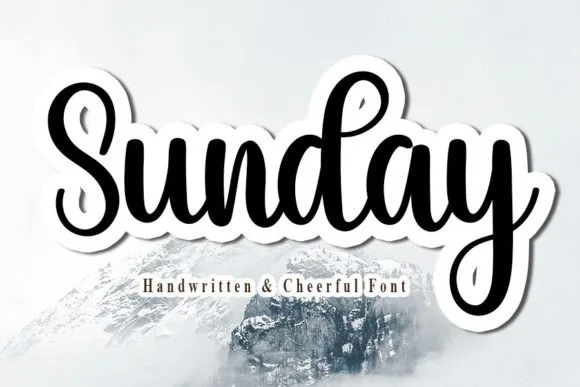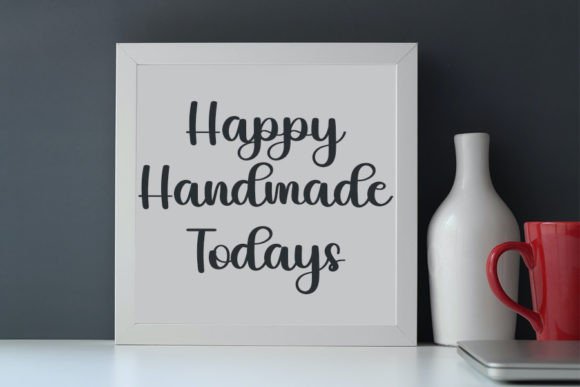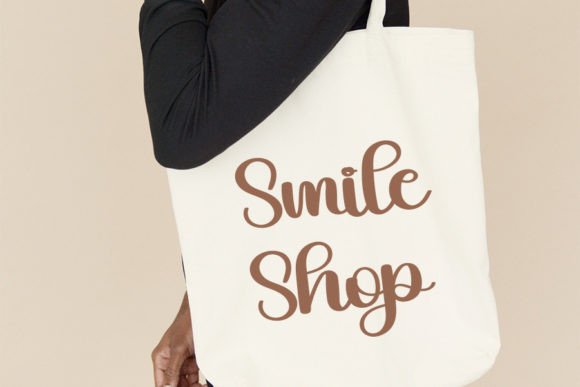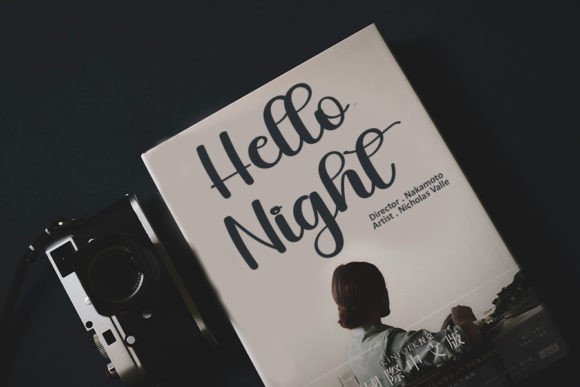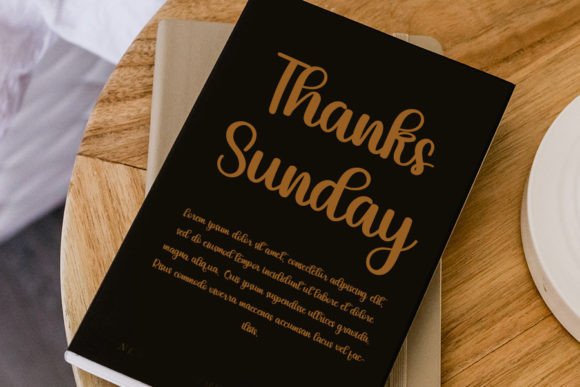
Sunday Font
About Sunday Font
**Sunday: A Laid-Back Vibe in Every Stroke**
**Sunday** isn’t just a font; it’s a laid-back, easygoing essence captured in every stroke. With a friendly handwritten style, this font adds a touch of casual charm to your font library, ready to infuse a relaxed vibe into your creative projects.
The beauty of **Sunday** lies in its approachable design. Each letter carries an air of ease and simplicity, making it an ideal choice for a variety of applications. Whether you’re working on social media posts, casual quotes, or any project that demands a touch of laid-back style, **Sunday** is your perfect companion.
Crafted with care, this font brings a personal and genuine touch to your designs. It feels like a friendly note or a casual message, establishing a connection with your audience. The well-designed characters ensure legibility and visual appeal, allowing your relaxed message to shine through effortlessly.
**Sunday** boasts versatility. It seamlessly fits into different design contexts, making it suitable for both digital and print applications. From easygoing posters and banners to casual invitations and beyond, **Sunday** introduces a relaxed spirit to every project.
Whether you’re a seasoned designer or someone exploring the realms of creativity, **Sunday** is a versatile tool that effortlessly adds a touch of laid-back charm to your visual storytelling. Embrace its casual vibes and let it transform your projects into easygoing experiences. Make your designs more relaxed with the casual and friendly style of **Sunday**.